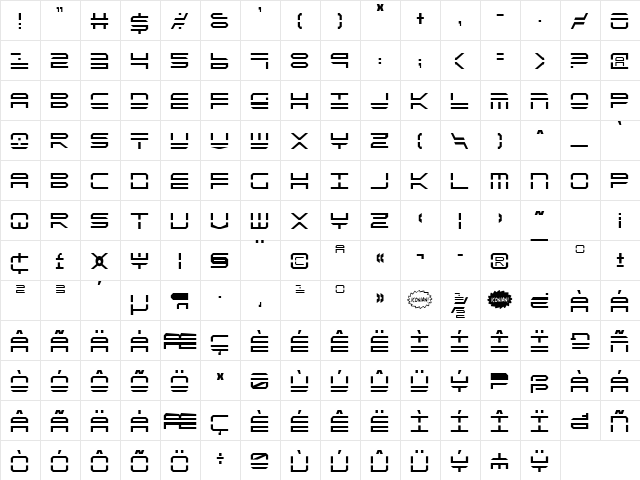
QuickStrike Condensed Condensed
Design Context for QuickStrike Condensed Typeface
QuickStrike Condensed is a composed and adaptable typeface that performs quietly and consistently across a wide range of design contexts. The condensed width makes it efficient for tight spaces without sacrificing legibility.